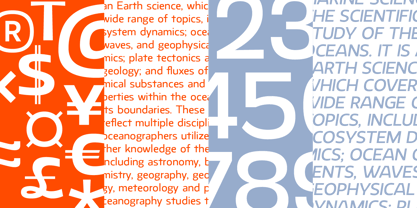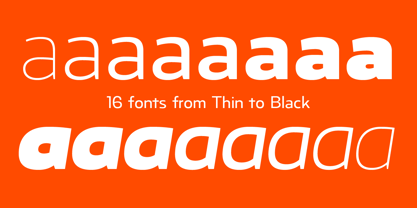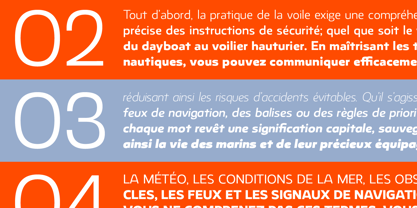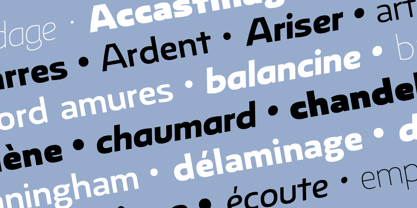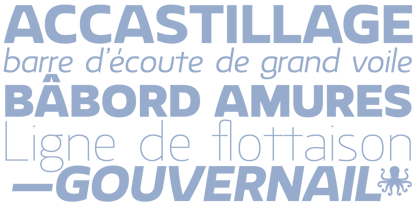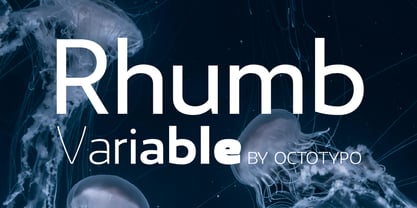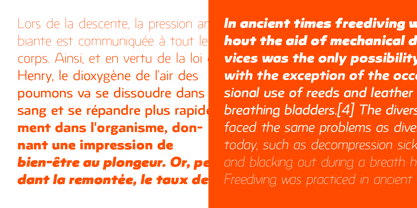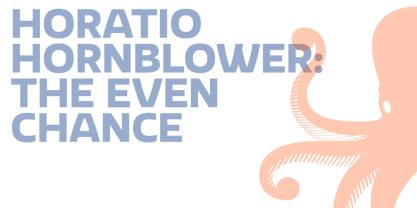
Rhumb Variable
La famille de polices Rhumb Variable a été conçue par Julien Janiszewski et publiée par Octotypo. Rhumb Variable contient 2 styles et options de package familial. En savoir plus sur cette famille
The Rhumb typeface family is a versatile and contemporary font collection, consisting of 16 styles: 8 Romans and 8 Italics. It was meticulously designed to create a warm, feel-good experience for the reader, making it an excellent choice for both display and longer texts. The rounded and sweet aesthetic of Rhumb gives it a friendly and approachable look, while its thoughtful typographic design ensures readability and clarity, even in smaller sizes. This unique combination of attributes makes Rhumb particularly well-suited for a wide range of applications, from branding and editorial design to advertising and packaging.
The architecture of Rhumb’s design makes it especially effective for composing text in small sizes, where legibility is crucial. The rounded forms and balanced proportions give it a distinctive character that stands out while maintaining harmony across various uses. Whether for magazines, cosmetics, food packaging, or any medium where a modern yet approachable typeface is desired, Rhumb delivers a stylish and effective solution.
Furthermore, Rhumb offers robust OpenType features with an extended character set, providing comprehensive support for Western and Central European languages. This allows for multilingual use, enhancing its functionality for global brands and publications. With its perfect blend of style and usability, Rhumb is an ideal choice for any designer looking to convey warmth, clarity, and a contemporary feel in their typographic projects.